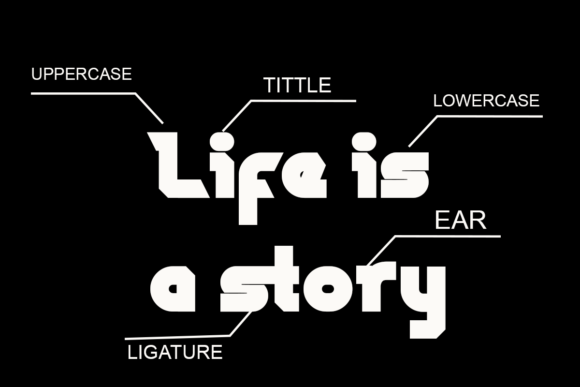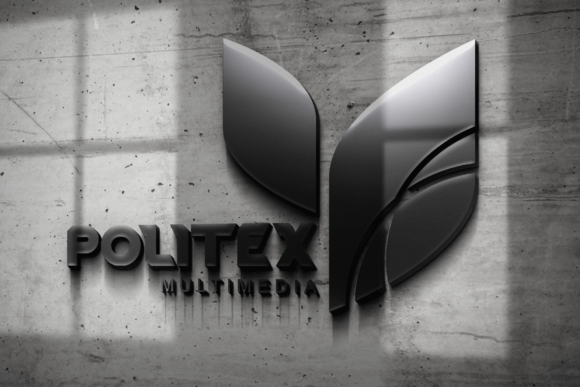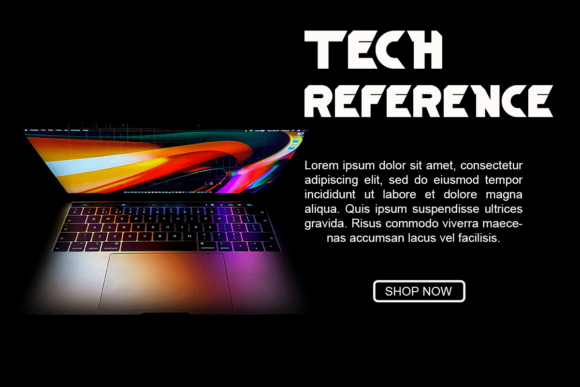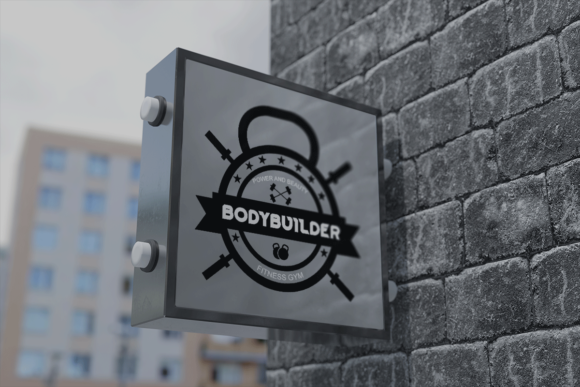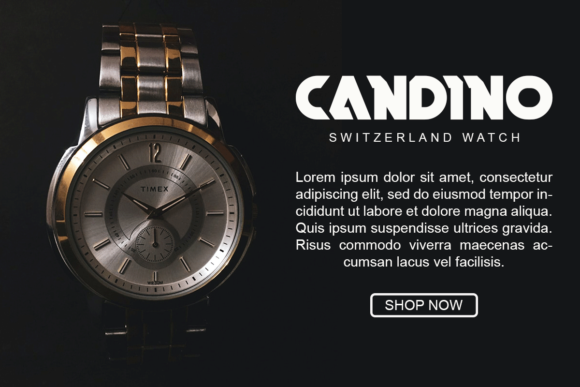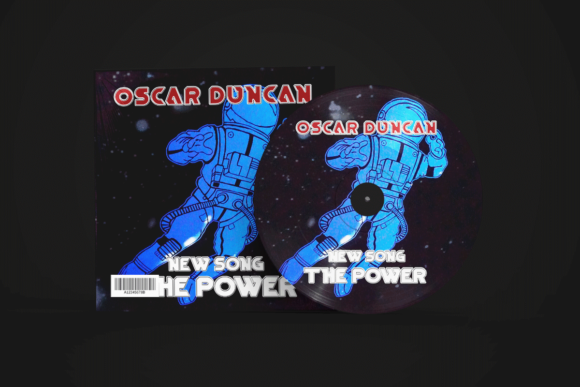
Introduction to Macros Font
Remember the moment when you finally nailed that creative project, and all your hard work came together in perfect harmony? The thrill of seeing your vision take shape, the satisfaction of a job well done – it’s a feeling like no other. For designers, that moment is often made possible by the right design resources, and one such treasure is the Macros Font.
This cool, bold, and thick lettered display font has the power to elevate any creation, making it an invaluable addition to your font library. With its high quality and versatility, Macros Font is perfect for designers looking to add a touch of sophistication to their work. Whether you’re working on a project that requires a free download or need a font with a transparent background, Macros Font has got you covered.
Macros Font: Key Features
- High-quality design resource with a unique, creative aesthetic perfect for various projects.
- Includes a comprehensive set of glyphs, ensuring coverage for various languages and characters.
- Perfect for use in graphic design, digital art, and other creative pursuits, offering a distinctive and eye-catching style.
Honest Review: Macros Font
I recently had the chance to work with the Macros Font, and I must say it’s been a game-changer for my creative projects. This font is a great addition to any designer’s toolkit, offering a unique style that sets it apart from more common fonts.
Here are some of the things that I love about the Macros Font: ✨
- High quality design: The Macros Font is incredibly detailed and visually appealing, making it perfect for a variety of creative projects.
However, there are a few limitations to keep in mind: ⚠️
- Limited font styles: While the Macros Font is great for certain projects, it may not offer the level of customization that some designers are looking for.
Overall, I’m really impressed with the Macros Font. It’s a high-quality design resource that can add a unique touch to any creative project. While it may have a few limitations, I think it’s well worth considering for any designer looking to add some personality to their work.
Macros Font
Tips for Getting the Most Out of Macros Font
Experiment with different font sizes and styles to create a visually appealing design. Use the Macros Font in combination with other design resources, such as graphics and images, to create a cohesive look. Take advantage of the transparent background feature to add depth and dimension to your design.
The Macros Font is ideal for creating eye-catching headings, titles, and captions in your design projects. It’s also great for use in logos, branding materials, and other creative projects that require a high-quality, professional font.